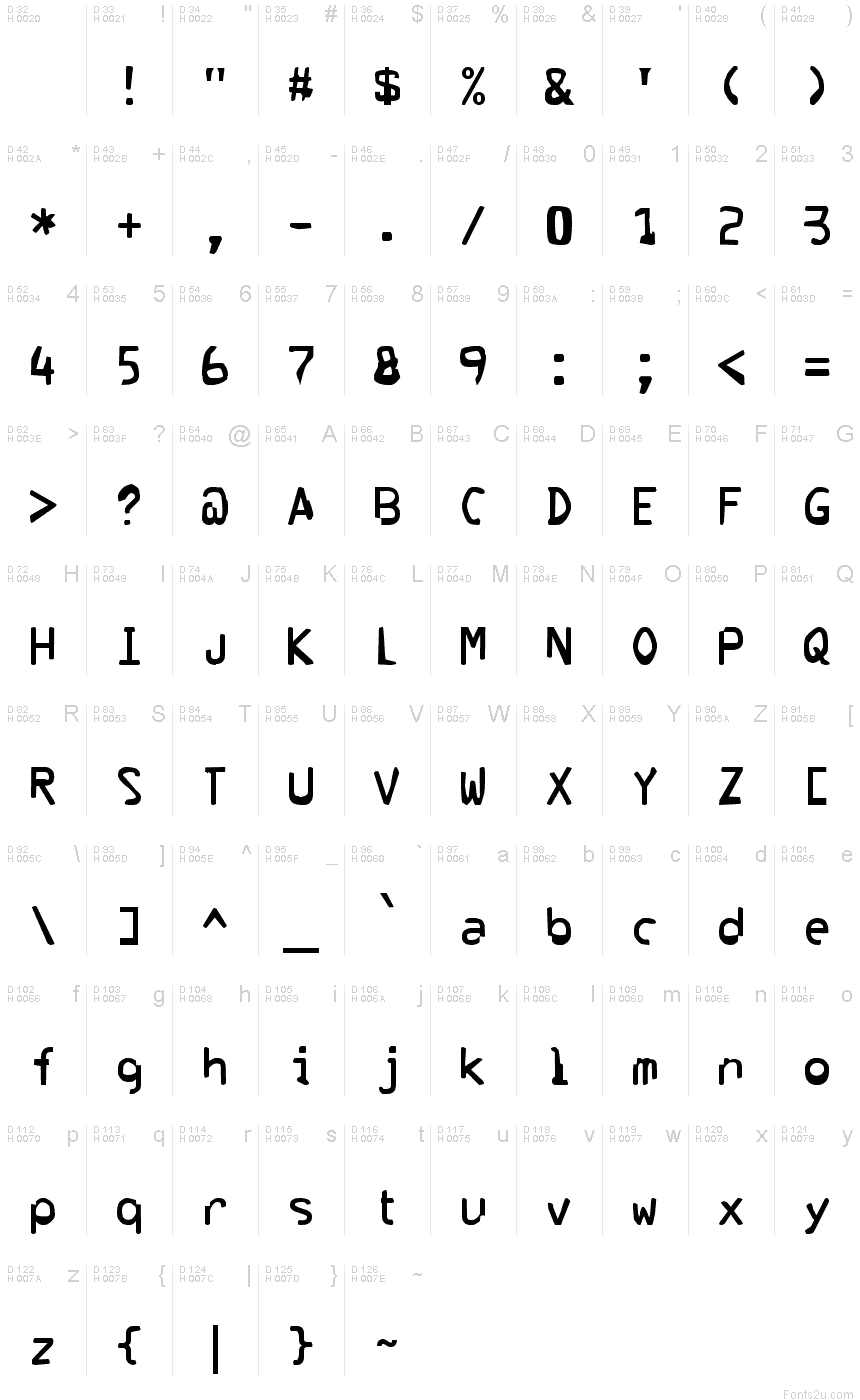
Corrupter
Corrupter font by B.O.Nelson of BrainEaters is a free distorted display typeface that looks like clean lettering that’s been quietly warped by a digital glitch. Its thin, inky strokes wobble and bulge in unexpected spots, giving each word a slightly uneasy, off-kilter sway while still staying readable. The letters feel rubbery and hand-tweaked, creating a subtle horror-tech vibe without going full splatter or grunge.
Using Corrupter, you get an instant mood for horror movie titles, glitchy game logos, cyberpunk posters, experimental music flyers, zines, or Halloween party invites. This free font works best large, where its strange curves can breathe; pair it with a plain geometric sans serif for small body text so the twisted headlines stay in the spotlight.